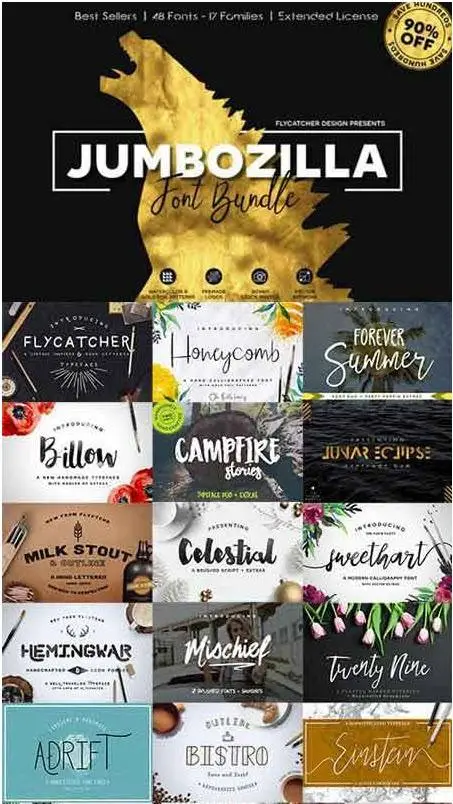
If you love hand lettering, this font bundle is the perfect opportunity to beef up your design arsenal at an incredibly affordable rate! Perfect for creating prints, invites, logos, & more with that hand-drawn aesthetic, The Jumbozilla Font Bundle is filled with everything you need to do get the job done!
This pack includes 17 Premium Font Families with over 48 individual fonts. It's also loaded with extra goodies including over 100 hand drawn vectors, stock photos, hundreds of bonus glyphs including language support across the board, custom brushes, swashes, ink splatters, end ornaments and ligatures, watercolor and gold foil patterns all rolled into one must have font bundle.
• Lunar Eclipse: 2 Fonts, 15 Stock Photos ( https://crmrkt.com/EWq3D )
• Forever Summer: 3 Fonts, Swashes & Ornaments, 5 Stock Photos ( https://crmrkt.com/vqr56 )
• Twenty-Nine: 2 Fonts, Swashes & Ornaments ( https://crmrkt.com/713l )
• Einstein: 3 Fonts, Beginning & Ending Ornaments ( http://crtv.mk/zAbh )
• Sweethart: 1 Font, 14 Ornaments, 40 Hand Drawn Icons & Catchwords ( http://crtv.mk/i0KLD )
• Honeycomb: 2 Fonts, 24 Gold Foil Patterns ( http://crtv.mk/h0Y0I )
• Campfire Stories: 3 Fonts, 26 Swashes ( http://crtv.mk/e0Iy9 )
• Celestial: 1 Font, 7 Watercolor Patterns, 15 Vector Splatters, 20 Swashes ( http://crtv.mk/h0NqA )
• Mischief: 3 Fonts, 16 Bonus Swashes ( http://crtv.mk/e09Rc )
• Billow: 1 Font, 15 Catchwords, 15 Ink Splatters ( http://crtv.mk/r048H )
• Flycatcher: 2 Fonts - Regular & Roughened ( http://crtv.mk/c04Xb )
• Bistro: 12 Fonts, 50 Hand Crafted Icons ( http://crtv.mk/a05pn )
• Adrift: 5 Fonts, Stylish Ligatures ( http://crtv.mk/q02hG )
• Nomad: 2 Fonts, 3 Brushes, 15 Vector Ink Splatters, 40 Hand Crafted Icons ( http://crtv.mk/j0HFQ )
• Milk Stout: 2 Fonts, Inline & Outline ( http://crtv.mk/t07rl )
• Hemingwar: 3 Fonts - Regular, Roughened, Stencil ( http://crtv.mk/r02bJ )
• Borderland: 1 Font, Language Support ( http://crtv.mk/q08mG )